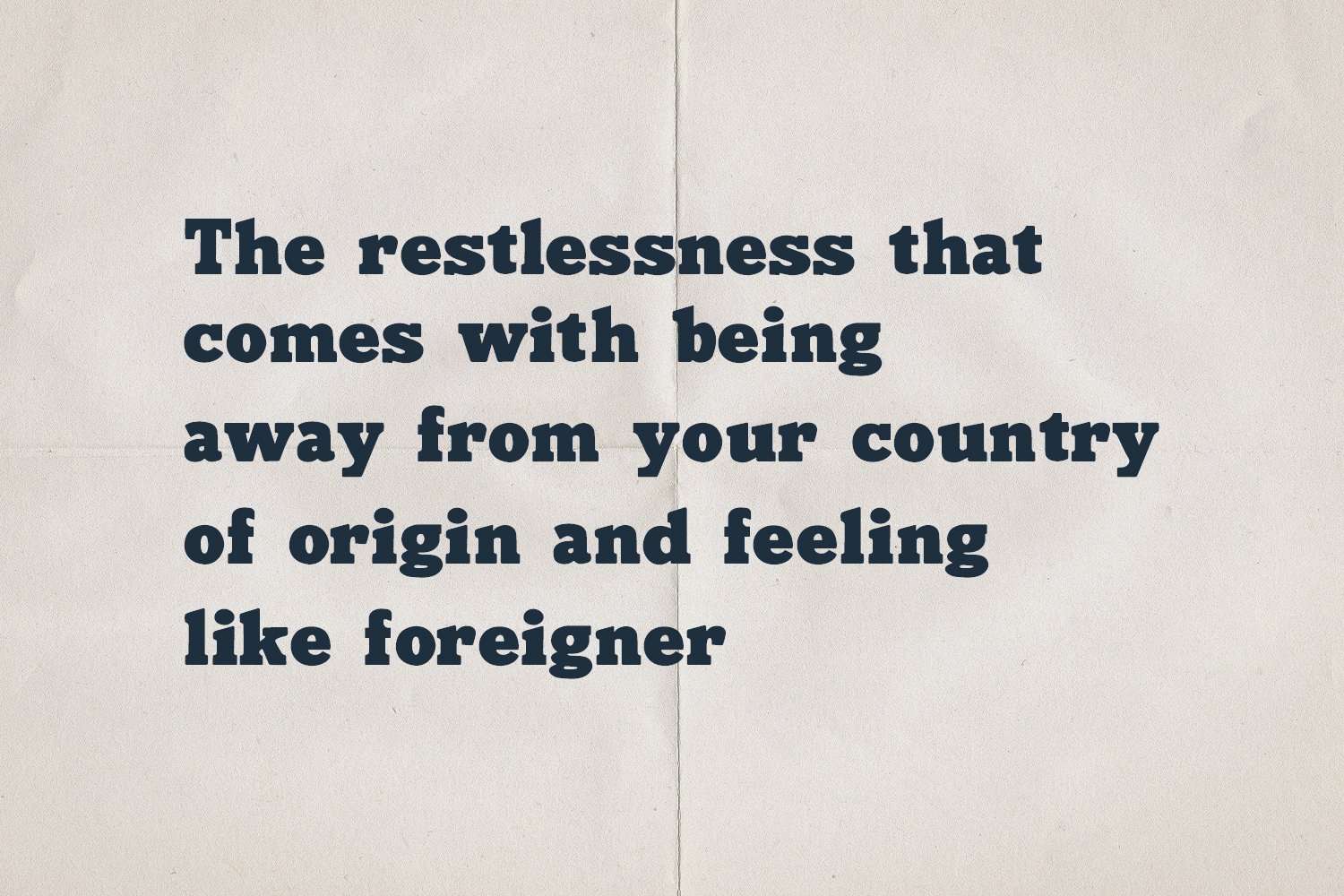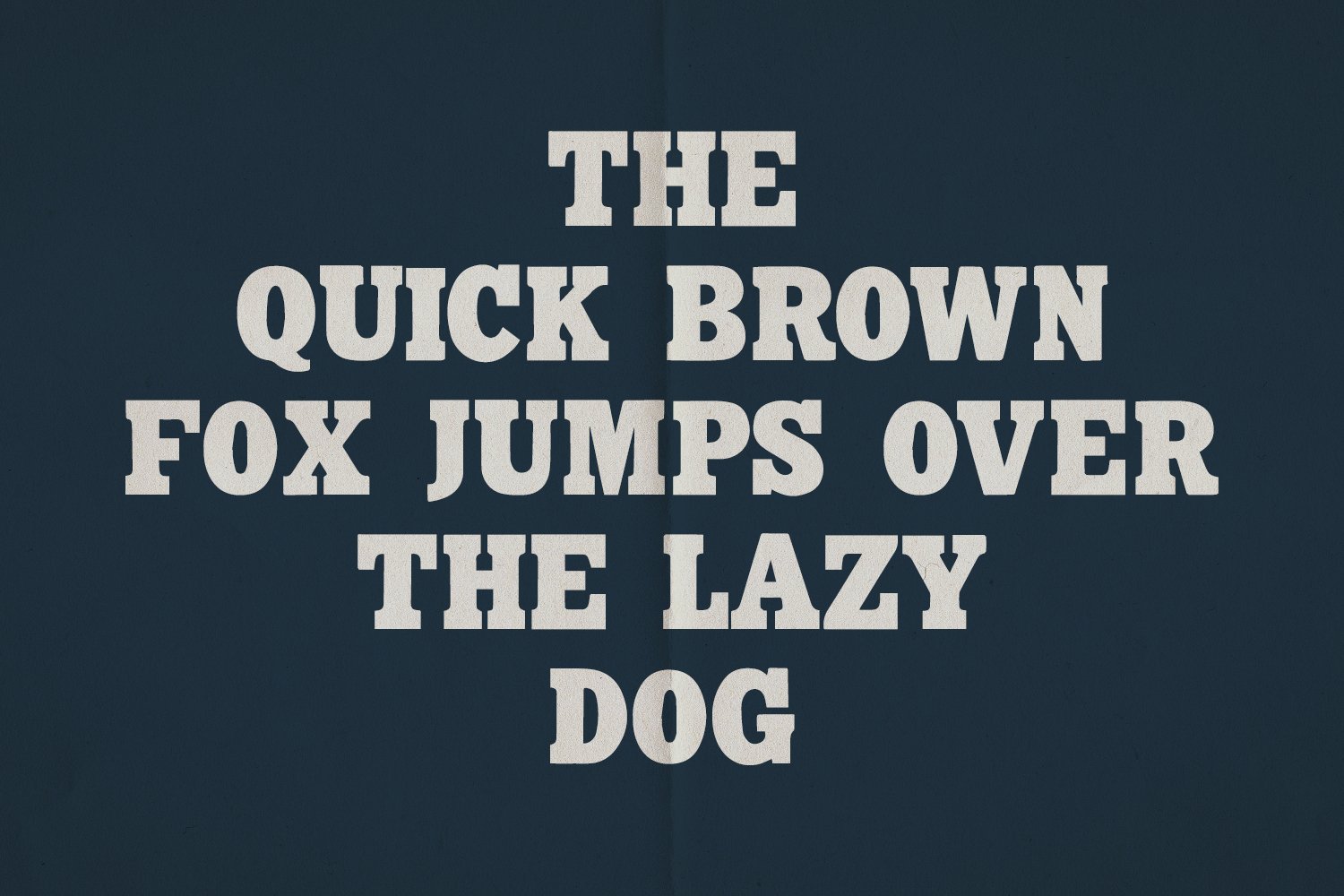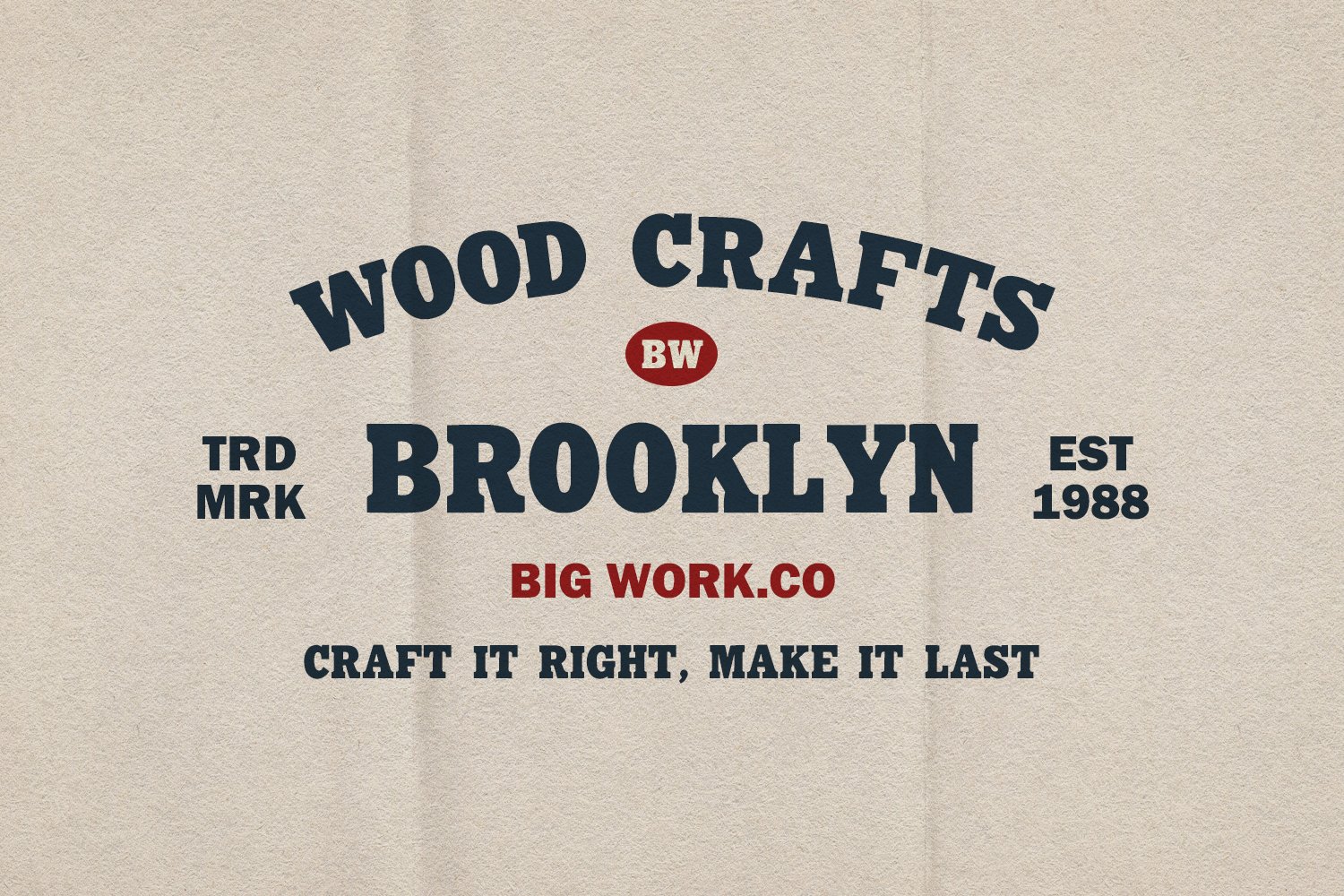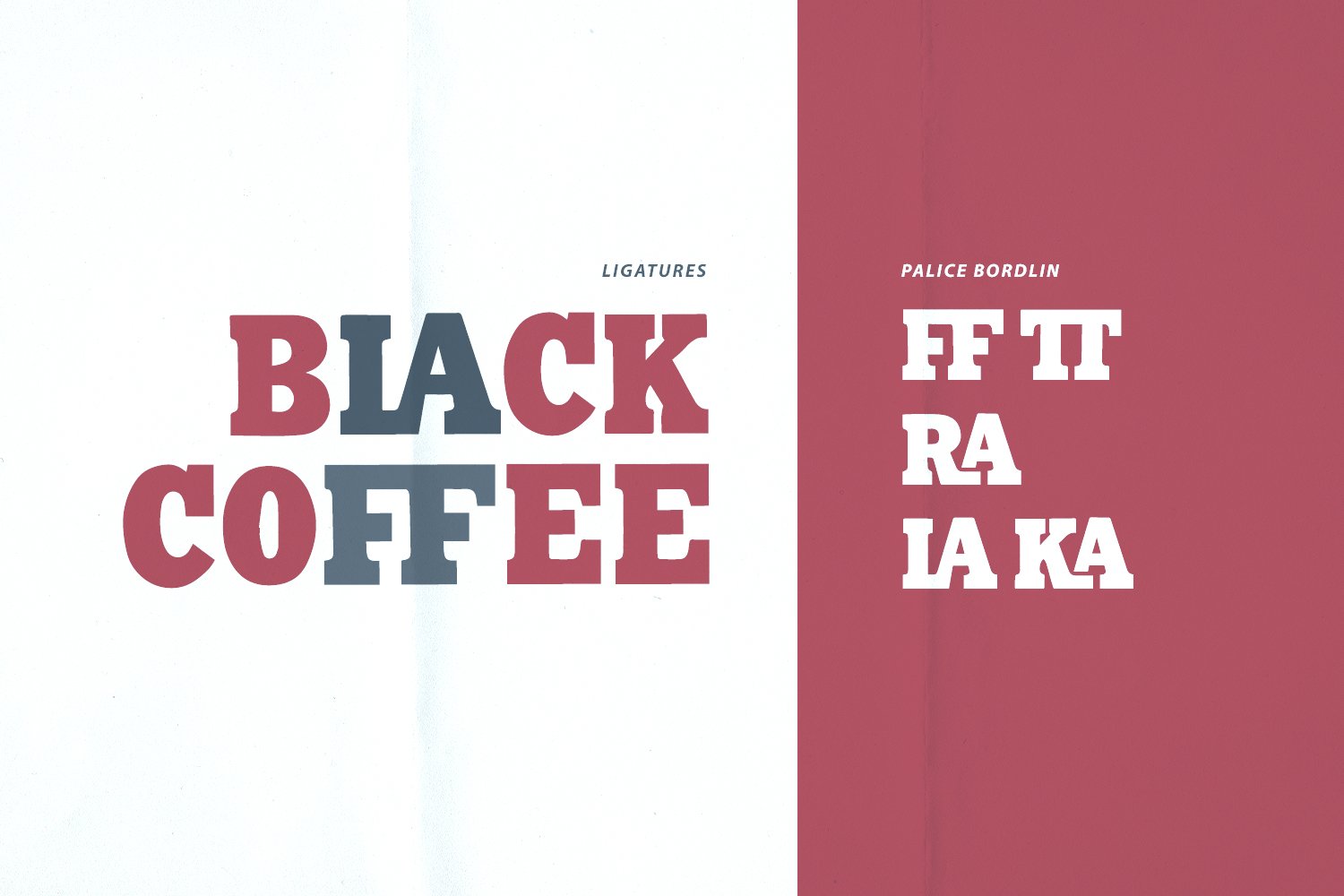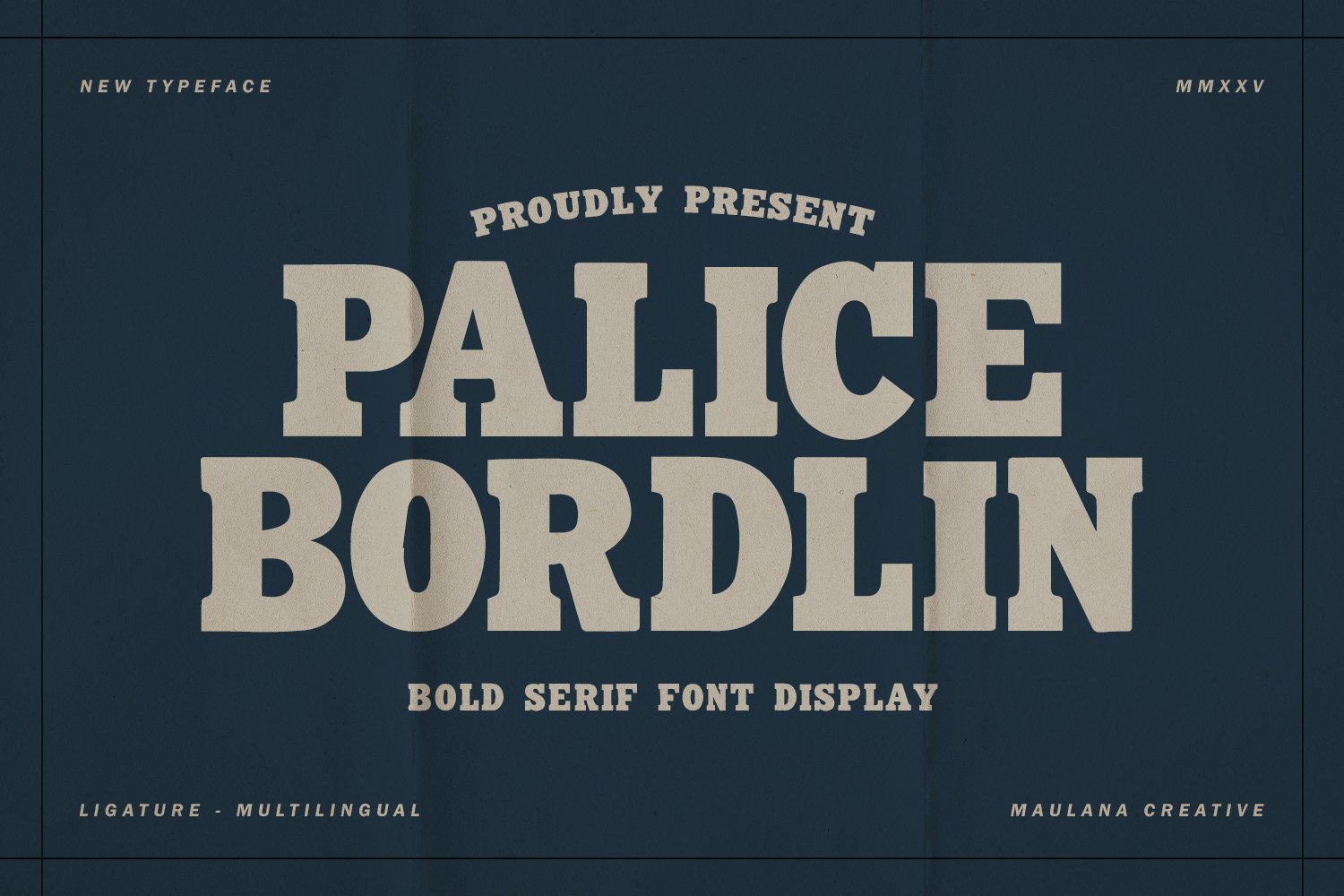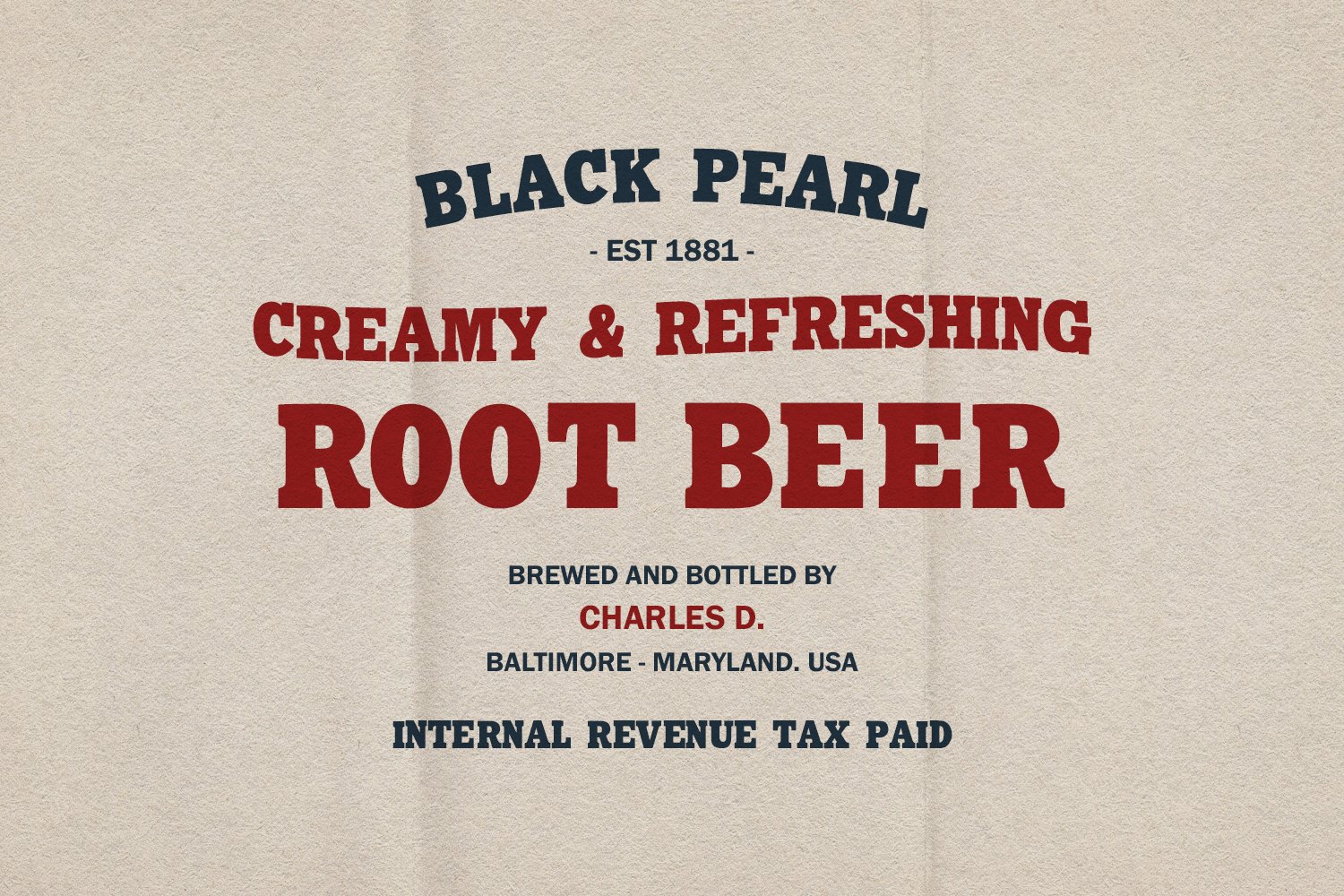
Palice Bordlin Vintage Bold Display Serif Font
Bring a touch of classic heritage to your modern designs with Palice Bordlin.
Palice Bordlin is a powerful, bold display serif font that radiates a timeless vintage charm. Inspired by traditional letterpress and classic mid-century typography, this typeface is meticulously crafted with thick, sturdy strokes and distinctive serifs to ensure your message stands out with authority and elegance.
Whether you are designing a rugged brewery logo, a sophisticated coffee house menu, or a bold sports headline, Palice Bordlin offers the perfect balance of grit and grace. It comes packed with unique ligatures and multilingual support, giving you the creative flexibility to craft truly bespoke layouts.
- Bold & Impactful: High-contrast weights perfect for headlines and posters.
- Vintage Aesthetics: Ideal for "old-school" and "industrial" branding.
- Ligature Set: Custom letter combinations for a professional, hand-lettered look.
- Multilingual Support: Reach a global audience with extensive character coverage.
- Versatile Use: Perfect for logos, apparel design, packaging, invitations, and more.